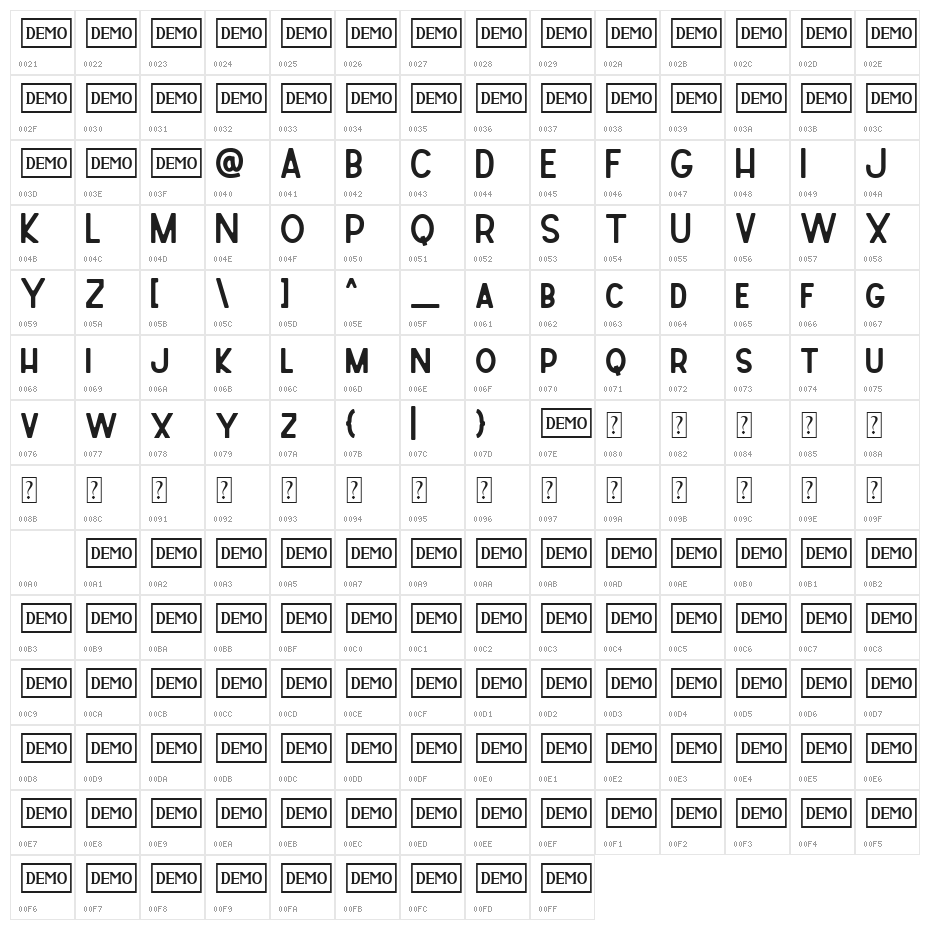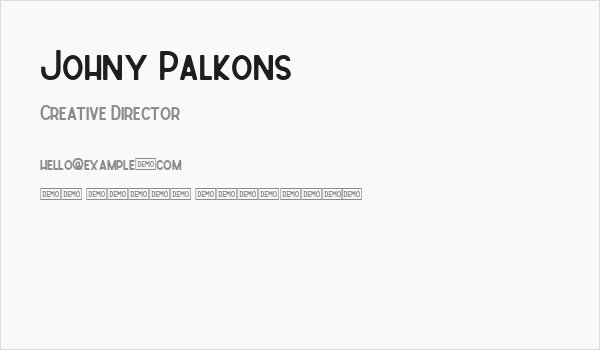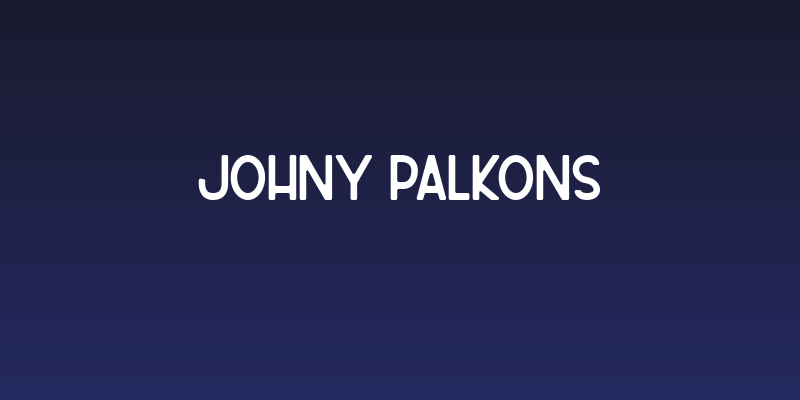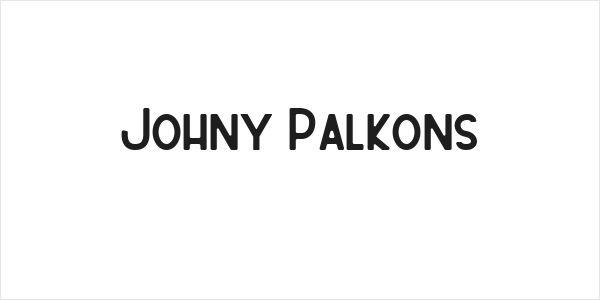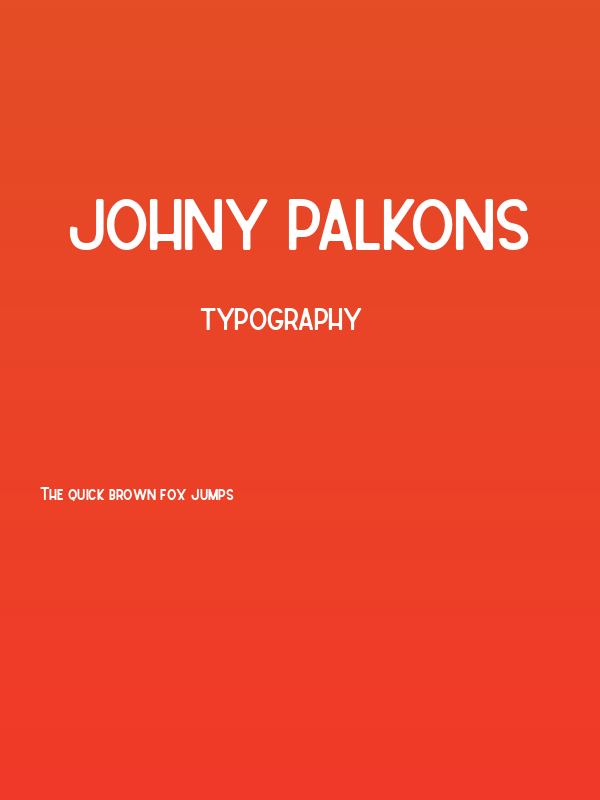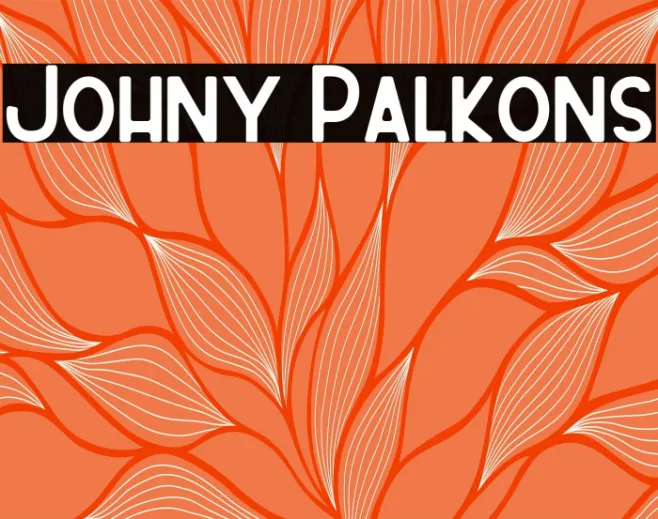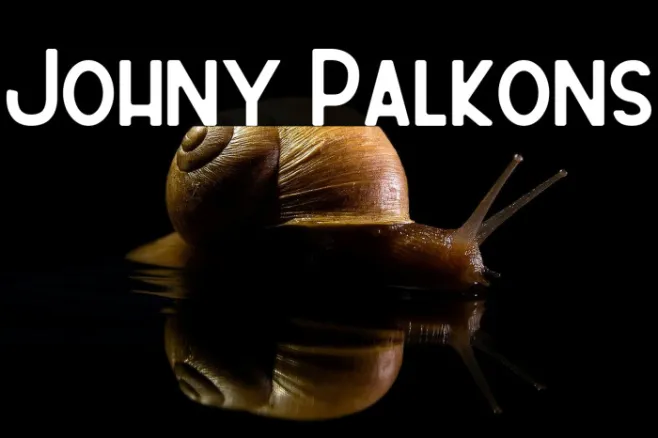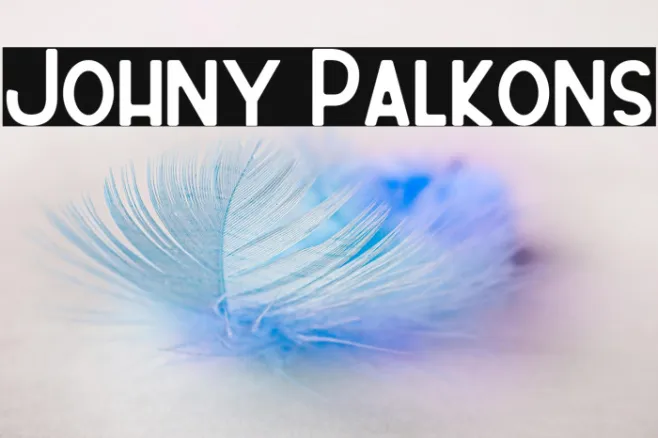
Johny Palkons Font
Johny Palkons Description
This font features a bold and modern design with clean, geometric lines. The uppercase letters are uniform in height, providing a strong and cohesive look. The characters are slightly rounded, giving a friendly and approachable feel. The font maintains a consistent weight throughout, ensuring readability and clarity. It is versatile and can be used in various design contexts, from digital to print. The spacing between characters is balanced, allowing for easy reading without feeling cramped or too loose. This font is ideal for projects that require a contemporary and professional appearance.